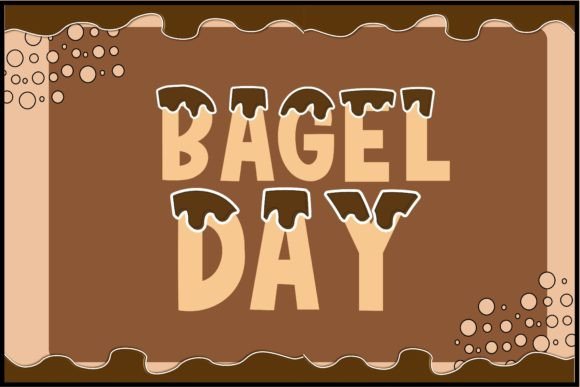
Bagel Day: A Playful Font for Creative Branding
There’s a certain charm in a typeface that doesn’t take itself too seriously. It can instantly set a mood, tell a story, and make a design feel approachable. Bagel Day is exactly that kind of font—a cheerful, bagel-shaped display typeface that brings a dose of whimsy and warmth to any project. Its rounded, playful letterforms are reminiscent of sweet treats and cozy mornings, making it a standout choice for creators who want to inject personality and fun into their work. Whether you're designing a logo for a new café, crafting social media graphics for a lifestyle brand, or putting together invitations for a birthday party, this font has a unique ability to capture attention and evoke a smile.
Where Playful Typography Meets Practical Design
At its core, Bagel Day is a color font, meaning it’s designed with built-in hues and shading that give it a vibrant, almost illustrated quality right out of the box. This isn't just another handwritten font; it’s a visual asset. The soft, rounded shapes of the letters avoid sharp edges, which contributes to its friendly and inclusive feel. This makes it particularly effective for projects aimed at families, children, food-related businesses, or any brand that wants to communicate warmth and creativity. Think of a children’s book title, a bakery’s packaging, or the header for a craft blog—Bagel Day fits naturally into these contexts because its visual language aligns with themes of comfort, joy, and handmade quality.
However, its appeal isn't limited to overtly playful themes. In the right context, it can serve as a striking contrast. Imagine a minimalist website for a tech startup using Bagel Day for a single, impactful headline to break the ice and show a more human side. Or a sophisticated editorial layout where a pull quote set in this creative font adds an unexpected moment of delight. The key is understanding its personality and using it strategically. It’s a display font, meaning it’s best used for headlines, titles, and short bursts of text where its detailed character can shine, rather than for long paragraphs where readability might become an issue.
Integrating Bagel Day into Your Brand Identity
For small business owners and entrepreneurs, choosing a premium font like Bagel Day is an investment in brand identity. Typography is a silent ambassador for your brand. The fonts you choose communicate your values before a single word is read. A font like this signals that your brand is approachable, creative, and perhaps a bit nostalgic. It works exceptionally well for:
- Logo Design: Creating a memorable and ownable wordmark for a café, ice cream shop, toy store, or children’s clothing line.
- Packaging Design: Making product labels on artisanal foods, craft kits, or party supplies jump off the shelf.
- Merchandise: Designing eye-catching graphics for T-shirts, tote bags, mugs, and stickers.
- Marketing Assets: Developing social media graphics, email newsletter headers, and promotional flyers that stand out in a crowded feed.
The goal is visual consistency. By using Bagel Day across your key touchpoints—from your website’s main headline to your Instagram Stories—you create a cohesive look that becomes instantly recognizable to your audience. This repetition builds brand recognition. When a customer sees that distinctive, friendly lettering, they’ll immediately associate it with your business, strengthening your brand’s presence in their mind.
Practical Tips for Using a Display Typeface
Working with a character-rich font like Bagel Day requires a thoughtful approach to ensure your designs remain effective and professional. Here are some practical considerations:
- Prioritize Readability: Always test your text at the size it will be viewed. What looks charming on a large poster might be hard to decipher as a small website button. Reserve it for large-scale applications where its details are clear.
- Master Font Pairing: The most successful designs often use two or three fonts. Pair Bagel Day with a clean, neutral sans serif font for body text. A simple sans serif like Montserrat or Lato provides a calm backdrop that lets the playful headline font take center stage without overwhelming the viewer.
- Review the Included Styles: Check what’s included with the font package. Does it come with alternate characters, ligatures, or multilingual support? These features can add valuable variety to your designs.
- Understand Commercial Licensing: If you plan to use the font for client work or sell products featuring the font, ensure you have the correct commercial font license. This is a crucial step to avoid legal issues down the line.
- Match to Project Goals: Ask yourself what emotion or message you want to convey. Bagel Day is perfect for fun, community, and creativity. It might not be the right fit for a law firm or a luxury watch brand, where a serif font or sleek sans serif font would be more appropriate.
Ultimately, a font like Bagel Day is a powerful tool in your design assets toolkit. It’s not about using it everywhere, but about using it in the right places to create moments of connection and joy. By understanding its strengths and applying it with intention, you can elevate your projects, engage your audience on an emotional level, and build a brand identity that feels both professional and genuinely fun. It’s a reminder that in design, sometimes the most impactful choices are the ones that don’t shy away from a little personality.